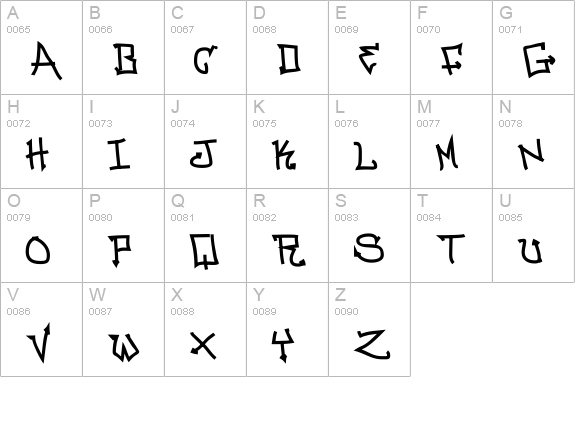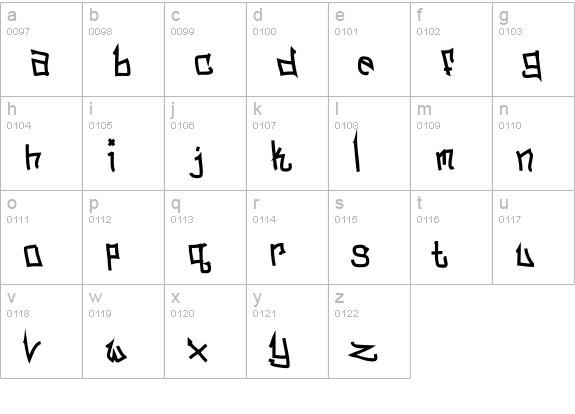
BitchSlap Normal is the standard, neutral variant in the BitchSlap typeface family \xE2\x80\x94 well suited to general body text, paragraphs, and standard typographic work.
BitchSlap Normal font is a bold and eye-catching typeface that exudes attitude and personality. Its striking design makes a statement, perfect for adding a touch of edginess to your projects. Whether you're creating posters, social media graphics, or branding materials, BitchSlap Normal is sure to grab attention and leave a lasting impression. What's even better is that BitchSlap Normal font is available for free download at FontsMarket.com. This means you can easily access this dynamic font and incorporate it into your designs without any cost. Don't miss out on the opportunity to enhance your creative projects with the bold and impactful BitchSlap Normal font - download it for free today!